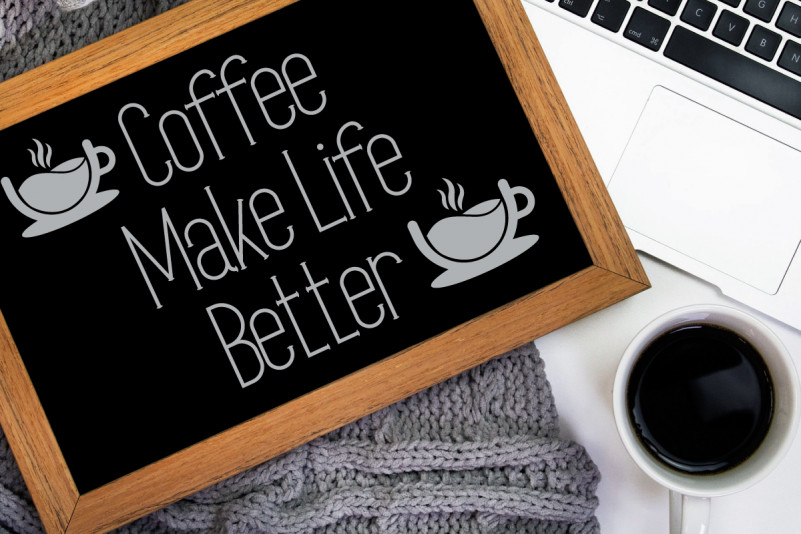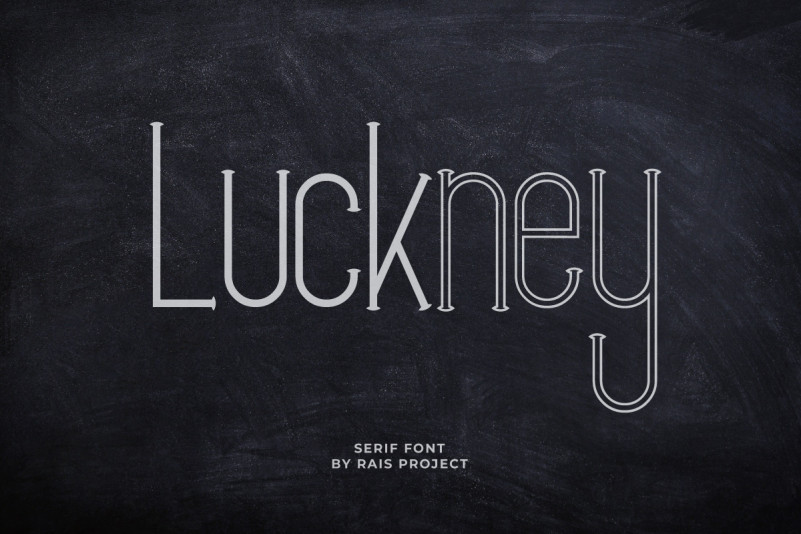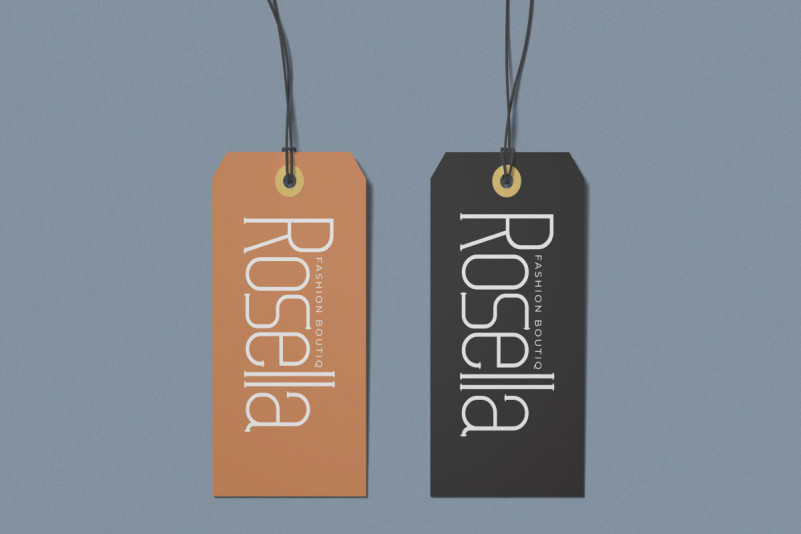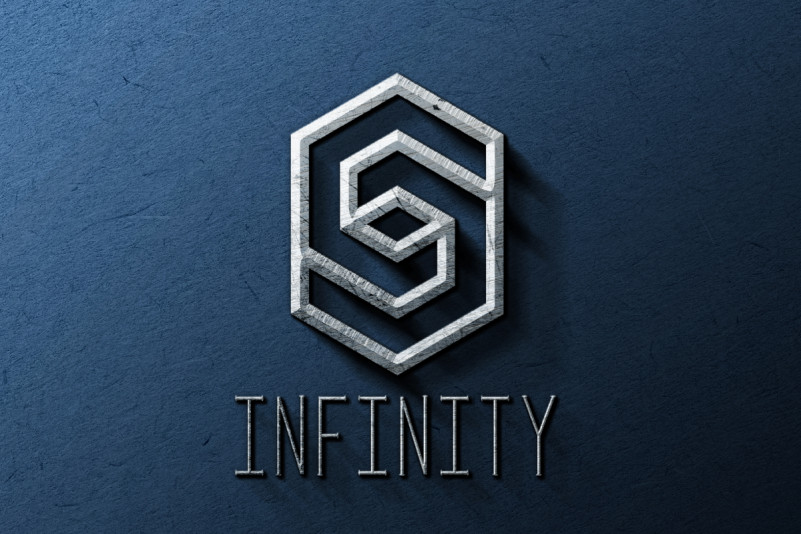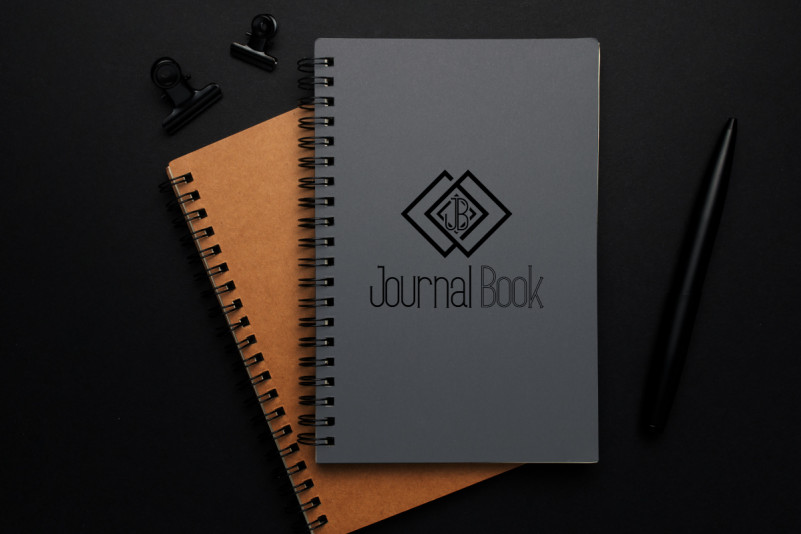
Luckney Font
Luckney Serif Font
This font is remotely made by RaisProject team in Indonesia. The font was handcrafted for any your special projects including : headlines, promotion, events, branding, advertising, magazine, signage, invitation, stationery, social media posts, label, or and any projects that need unique strong style. The industries for this font is Startup, Automotive, Apps, Cosmetic, Beauty, Technology, Game, Magazine, Music, Sport etc
Luckney Serif Font includes full set of gorgeous uppercase and lowercase letters ,numerals and Multi languages characters. In total, Luckney has three different styles : Regular, Outline and Italic.